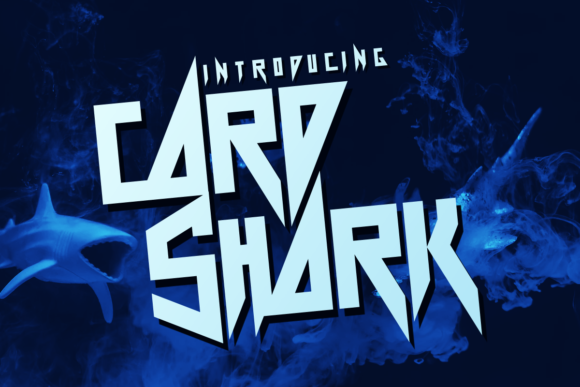
Card Shark Font
Step into the world of unmatched boldness and elegance with Card Shark, a display font that will make your designs roar with confidence. Its powerful, bold strokes and eye-catching presence will turn heads and leave a lasting impression. Whether you're creating posters, branding, social media graphics, or website headers, Card Shark is your ticket to captivating designs that demand attention.
At first glance, Card Shark might seem like a typical display font. But look closer, and you'll discover a world of intricate details and subtle nuances that make it truly special. The sharp angles and precise curves create a visual symphony that dances across your designs, evoking a sense of sophistication and finesse. With Card Shark, your words will command attention and leave an unforgettable mark on your audience.
One of the most striking features of Card Shark is its versatility. It effortlessly adapts to a wide range of design styles, from classic and timeless to modern and edgy. Its strong personality shines through, whether you're creating vintage-inspired posters, sleek logos, or dynamic social media graphics. Card Shark is the chameleon of fonts, seamlessly transforming itself to match your creative vision.
But Card Shark is more than just a versatile performer. It's a font with a soul, a font that speaks to your emotions and ignites your imagination. Its bold strokes evoke a sense of adventure and excitement, while its precise curves hint at a touch of elegance and sophistication. With Card Shark, your designs will resonate with your audience on a deeper level, creating a connection that goes beyond words.
So, if you're ready to unleash your creativity and craft designs that truly captivate, Card Shark is your perfect partner. Its striking appearance, unmatched versatility, and emotional depth will elevate your projects to new heights. Join the Card Shark revolution and experience the power of truly remarkable typography.